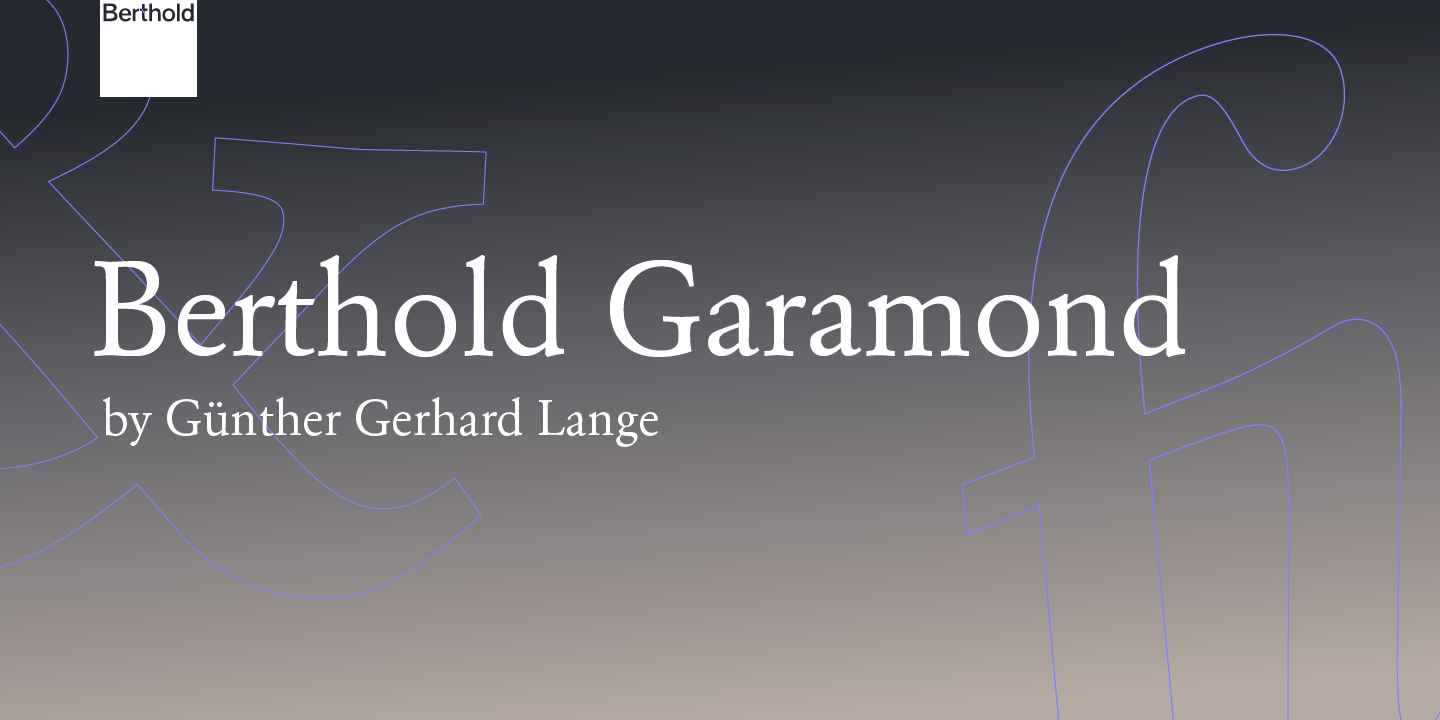
Berthold Garamond Font is perfect for fine book publishing, literary magazines, classical literature editions, academic journals, scholarly dissertations, cultural publications, art books, poetry collections, and prestigious editorial projects. This distinguished typeface brings Renaissance elegance and typographic refinement to projects requiring exceptional readability and timeless aesthetic sophistication.
What makes Berthold Garamond Font exciting is its masterful interpretation of Claude Garamond's legendary 16th-century designs that represents the pinnacle of Renaissance typography and humanistic letterform perfection. The font features exquisite proportions with subtle contrast and graceful serifs that create optimal reading rhythm and visual harmony. Its classical character and scholarly personality make it irresistible for publishers seeking typography that honors literary tradition while delivering exceptional reading comfort and intellectual gravitas.
The Berthold Garamond Font family includes classical weights and scholarly styles: Light, Regular, Medium, Bold, and corresponding Italic variations with small caps and old-style numerals. Each weight maintains the font's Renaissance character while offering designers authentic flexibility for literary publishing and cultural communication applications requiring historical accuracy and typographic excellence.
Whether you're designing for literary publishers or cultural institutions, Berthold Garamond Font Free Download provides designers with an authoritative, literature-focused typeface solution. The font's Renaissance aesthetics and scholarly styling make it ideal for university presses, literary magazines, cultural foundations, and classical music organizations. Its distinguished presence ensures your message communicates intellectual authority and cultural refinement while maintaining superior readability. The comprehensive character set includes traditional typography features and scholarly symbols, making it perfect for creating elegant headlines and publications that celebrate literary heritage and establish credibility in academic and cultural publishing environments.